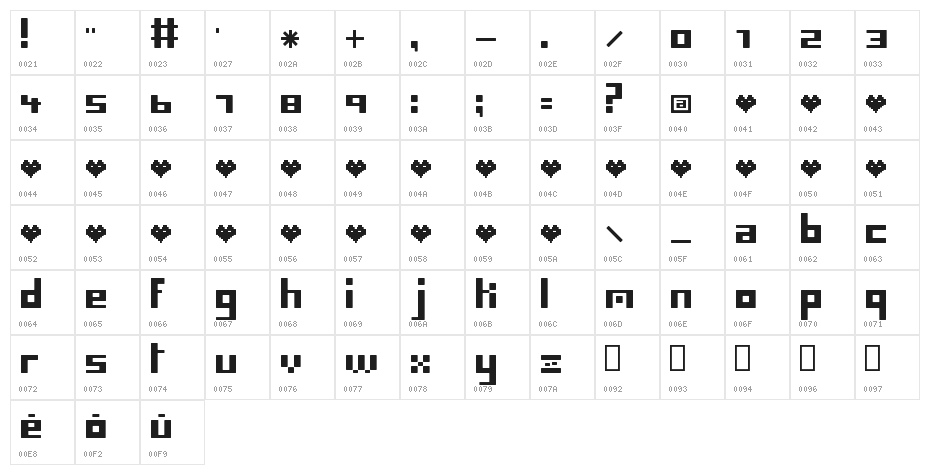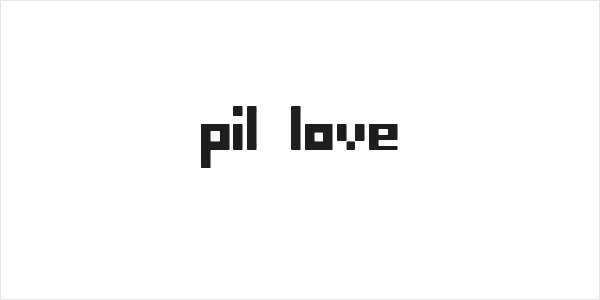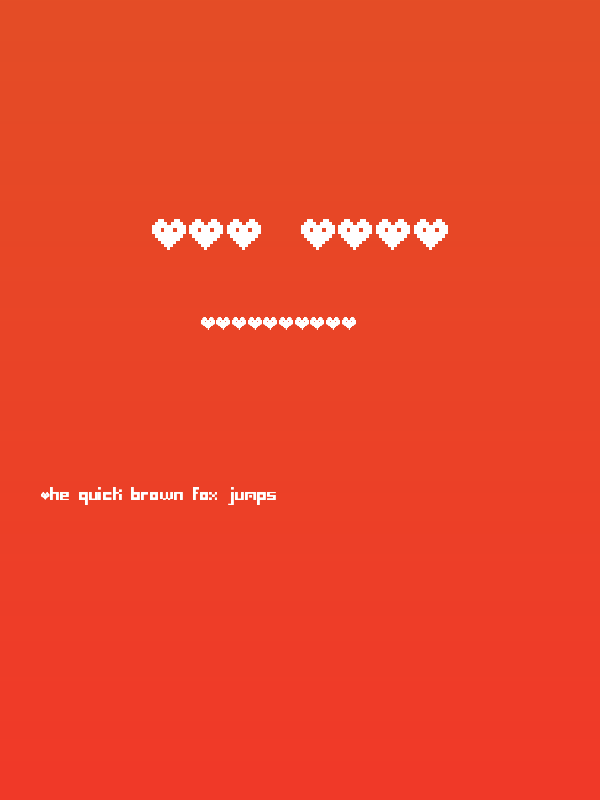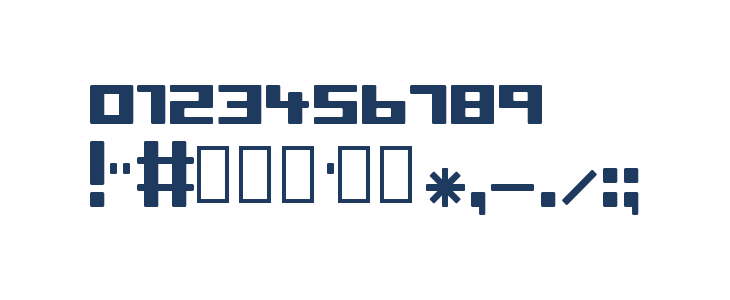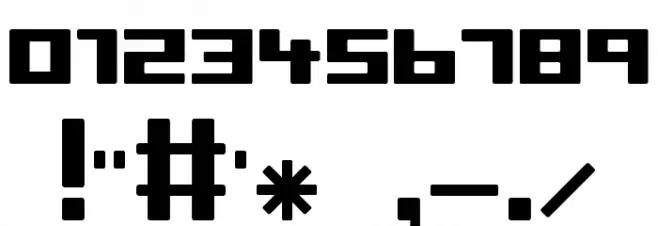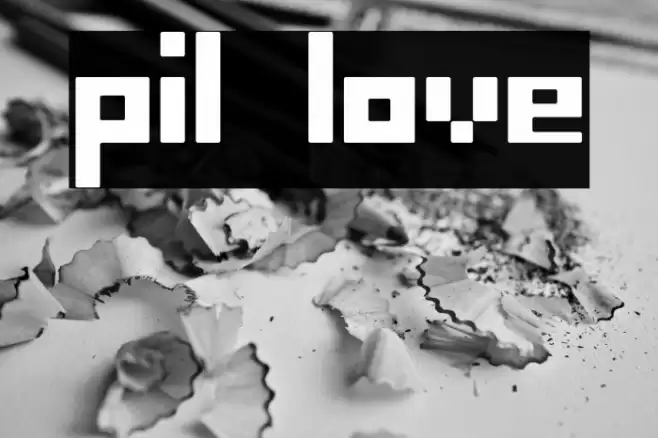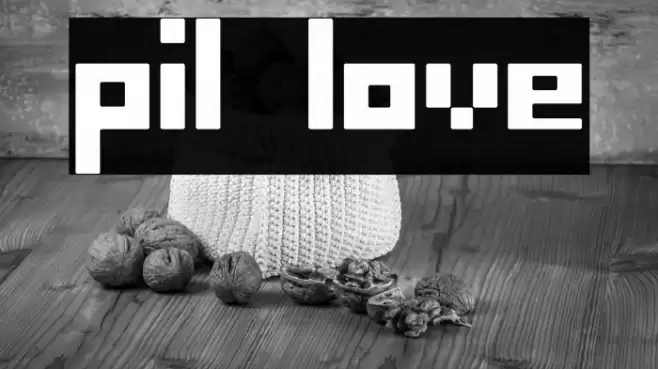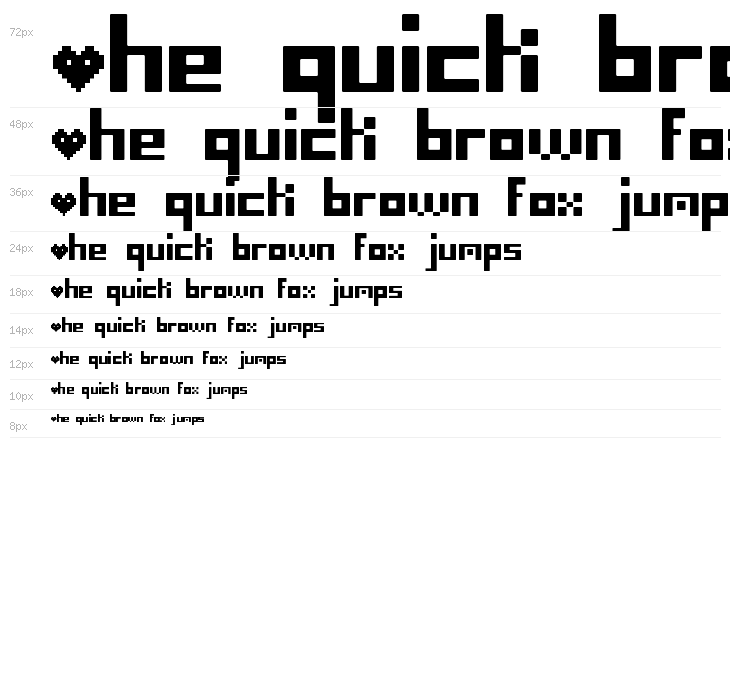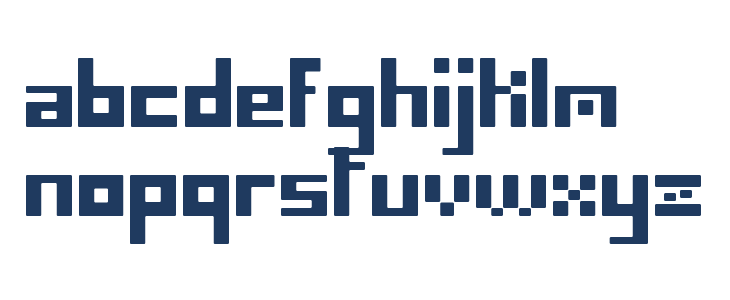
pil love Font
pil love Description
This font features a bold, pixelated design reminiscent of retro video game graphics. Each character is constructed with a blocky, geometric style, giving it a distinct digital appearance. The uppercase and lowercase letters maintain a consistent height, contributing to a uniform look. The numbers and special characters follow the same pixelated theme, ensuring visual coherence across all elements. The heart motifs at the top add a playful touch, making this font ideal for creative and nostalgic projects.
| Use Case | Logos, Posters, Headlines |
| Proposed Projects | Ideal for video game designs, retro-themed posters, digital art projects, and playful branding. |